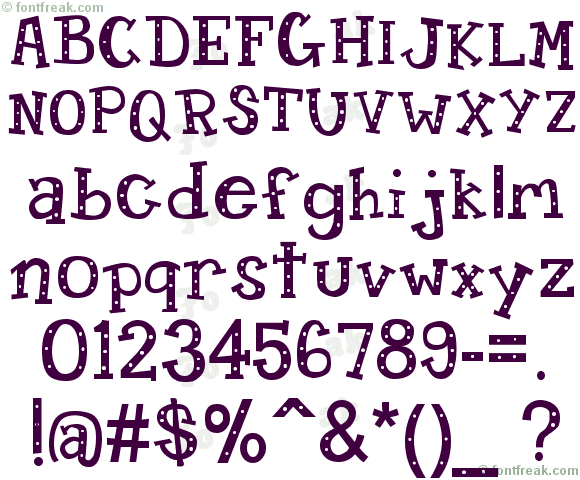
Candy Randy
The Candy Randy font by Lauren Ashpole is a delightful display typeface that embodies a playful and whimsical spirit. This freeware font features bold, rounded letters that are embellished with charming decorative elements, including circular dots that add a sense of fun and lightheartedness. The stroke weight is consistent, creating a uniform appearance, while the spacing between letters is thoughtfully designed to ensure readability without sacrificing style. The overall aesthetic of Candy Randy is both inviting and cheerful, making it perfect for a variety of creative projects.
This font shines in specific use cases, such as designing vibrant wedding invitations that convey joy and celebration, or creating eye-catching movie posters that draw attention with their playful typography. Additionally, Candy Randy is ideal for restaurant menus seeking to evoke a sense of warmth and friendliness, as well as for children's party invitations that require a fun and engaging touch. Graphic designers, small business owners, and content creators will find this font particularly appealing for projects that aim to capture attention and convey a sense of joy.
What sets the Candy Randy font apart is its unique blend of functionality and flair. It effortlessly combines readability with a whimsical design, making it a versatile choice for various applications. Whether you're crafting promotional materials, social media graphics, or any project that benefits from a touch of creativity, the Candy Randy font free download offers an exciting option to elevate your designs. With its charming character and playful spirit, this font by Lauren Ashpole is sure to leave a lasting impression on your audience.